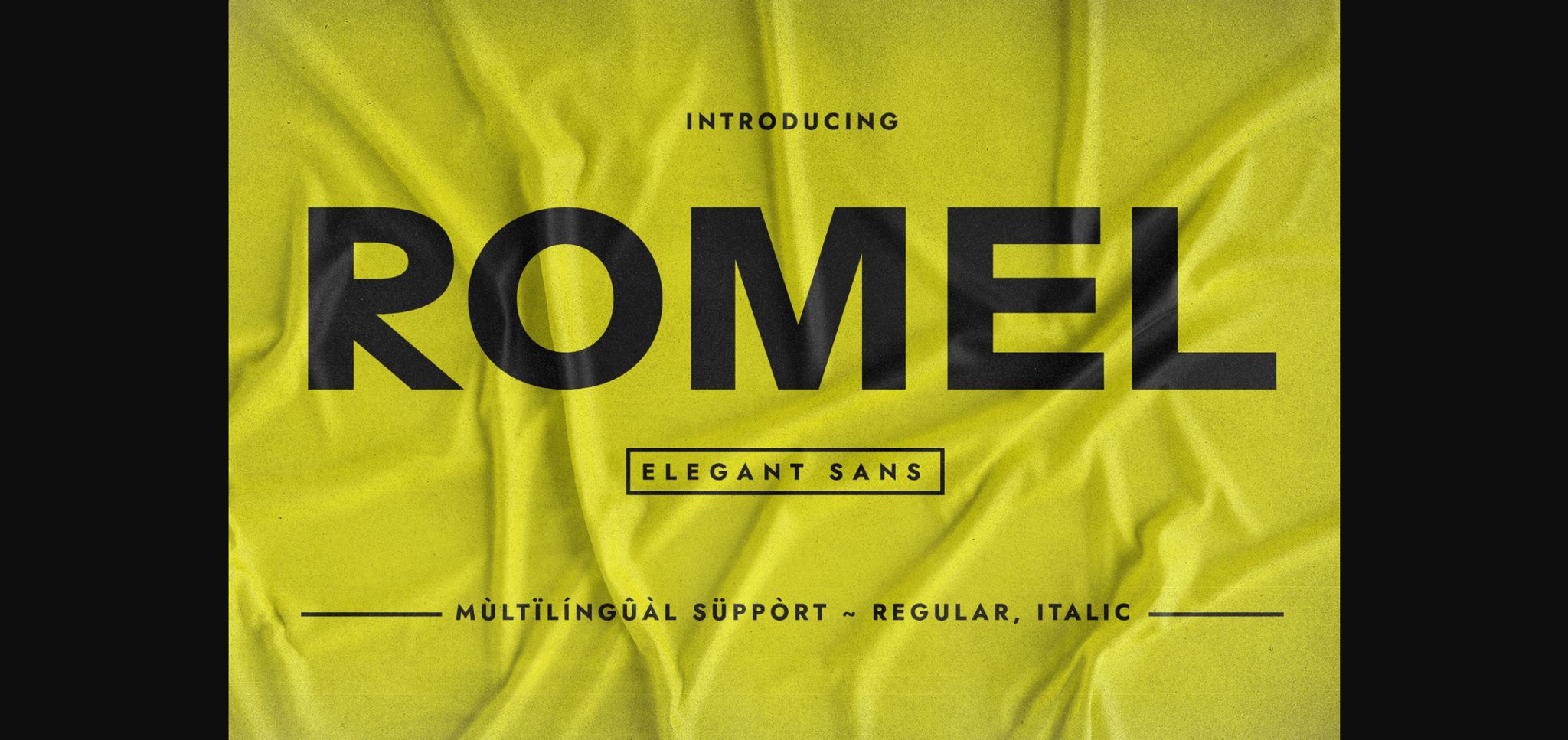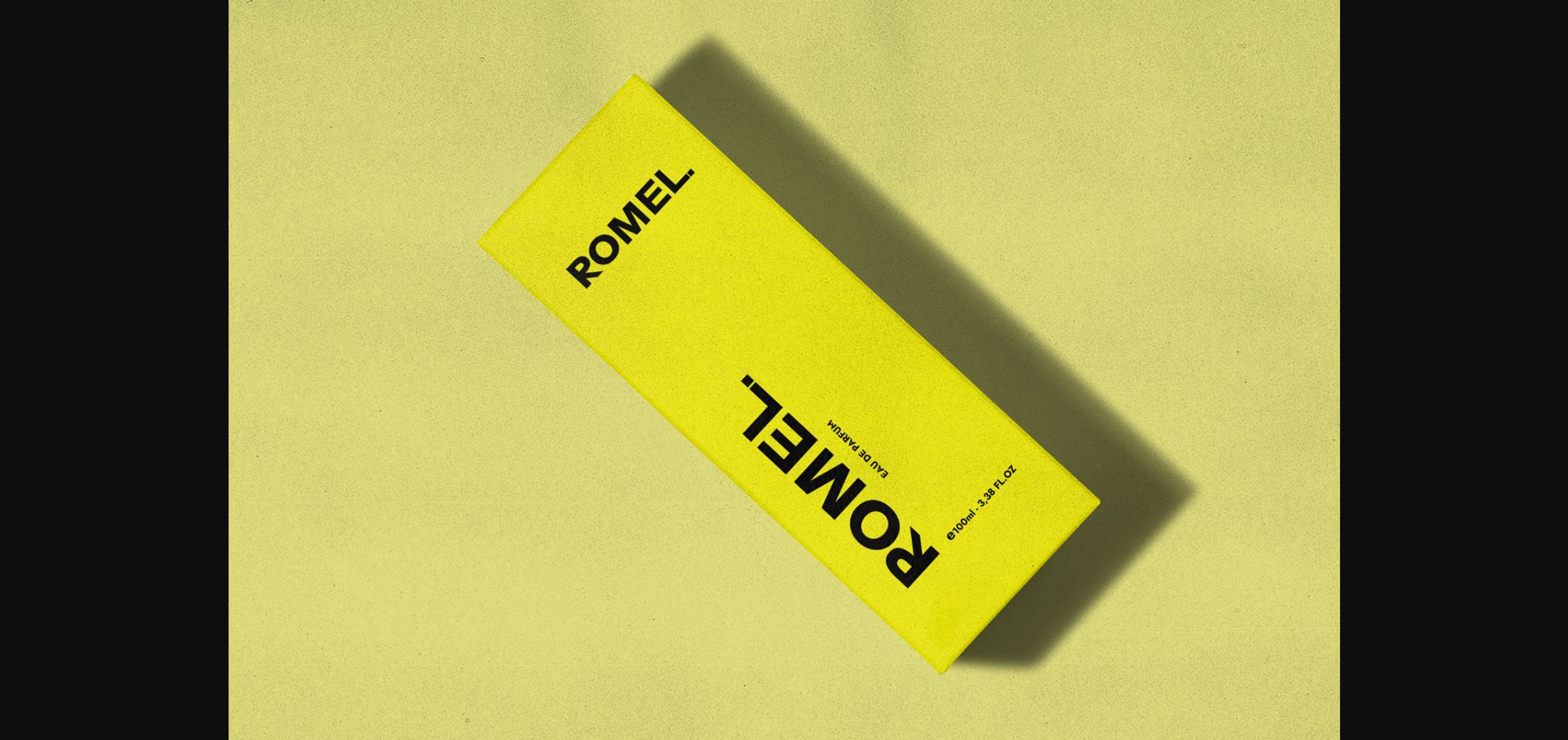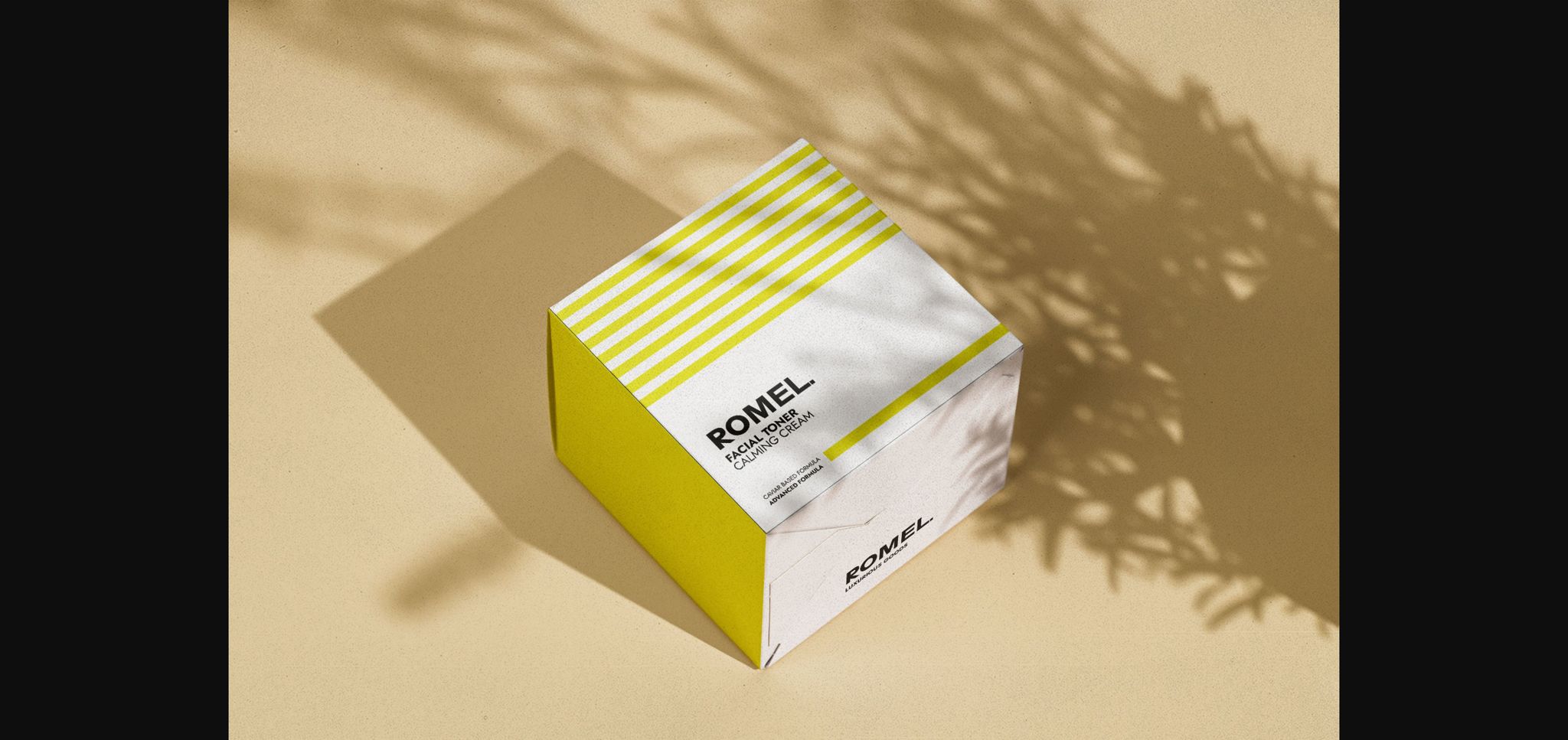
Romel is an elegant minimalist bold sans serif typeface. It was thought in the first place to function as a clean display sans serif that draws attention on large and small scales. its versatility renders it a perfect choice when you have a project that requires simple glyphs structure, yet is still capable to grab the viewer’s attention. Use it in your creative idea and notice how it makes them alive!